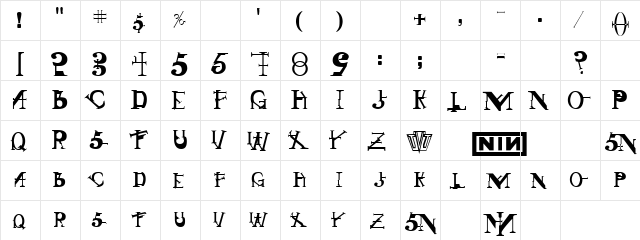
Funny Dude Regular
Design Context for Funny Dude Typeface
Funny Dude trades formality for fun, with bouncy, characterful letterforms that bring warmth and energy to any project.
Font Pairing: Pairs well with a rounded or humanist sans for body copy, maintaining the friendly tone without relying on Funny Dude to carry extended reading.
Pro Tip: Avoid using Funny Dude for long passages of text — it works best for headlines, labels, and short calls to action.